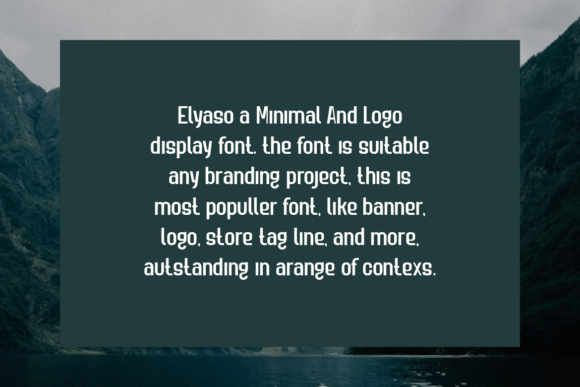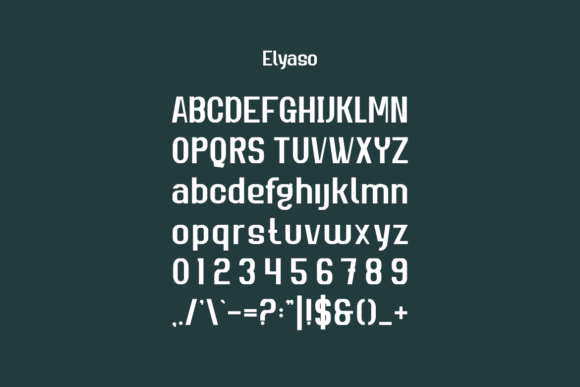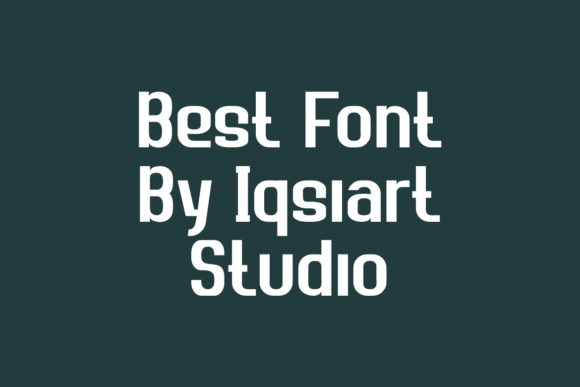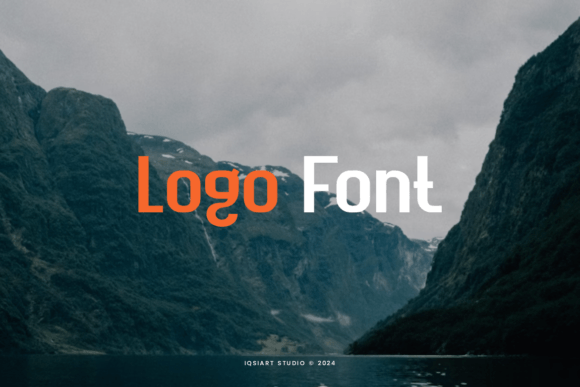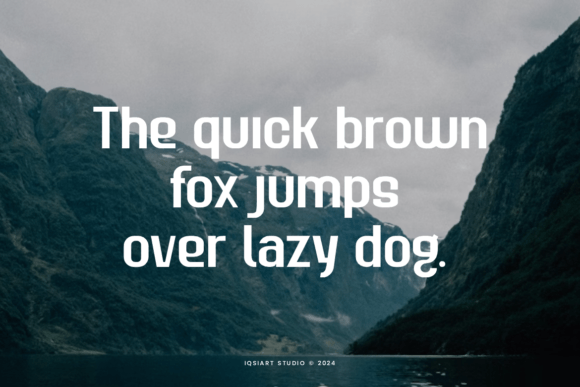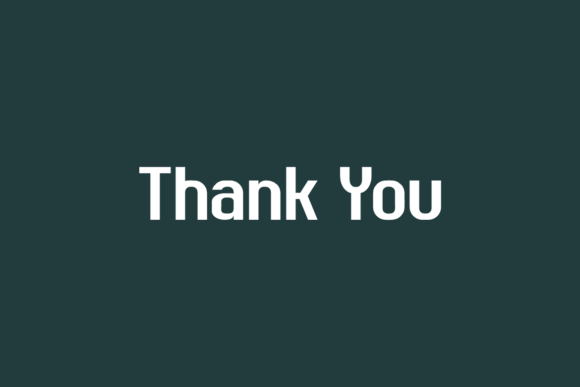
What is Elyaso Font?
Elyaso is a clean and modern sans serif font that has become a staple in my design toolkit. It features simple, straight lines and smooth curves, making it easy to read and perfect for both headlines and body text. The design is minimal, giving it a stylish and professional look that’s hard to resist.
- ✅ Readability: Elyaso is incredibly easy to read, even at small sizes.
- ✨ Versatility: It works well in a variety of projects, from digital designs to print materials.
- 💼 Professional look: The font’s clean and minimal design gives any project a professional and modern feel.
- 🎨 Design flexibility: Elyaso comes with a range of OpenType features, making it perfect for creative designs.
While Elyaso is an excellent font, there are a few things to keep in mind: ⚠️
- 🤔 Limited character set: Some users have noted that the font could benefit from a wider range of characters.
- ⚠️ Not ideal for body text in long documents: While readable, Elyaso’s clean and minimalist design might not be the best choice for lengthy documents.
The Story Behind Elyaso Font
Elyaso was designed with the intention of creating a font that’s both modern and timeless. The designer aimed to craft a font that would be versatile, easy to read, and perfect for a wide range of projects. While the exact backstory might be fictional, it’s clear that Elyaso was created with the needs of designers like you in mind.
Q: Is Elyaso suitable for body text?
A: Yes, Elyaso is suitable for body text, especially in digital designs and short documents. However, for very long documents, you might want to consider a font with more character variation.
Q: Does Elyaso support OpenType features?
A: Yes, Elyaso comes with a range of OpenType features, including stylistic alternates and glyphs, which can enhance your designs.